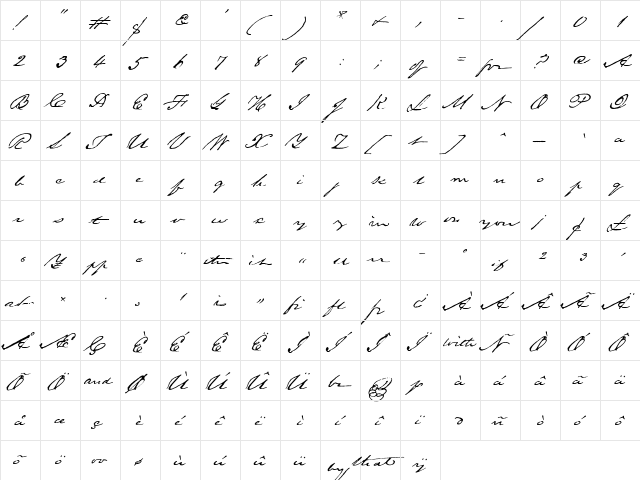
TexasHeroBETA Regular
Design Context for TexasHeroBETA Typeface
TexasHeroBETA is a composed and adaptable typeface that performs quietly and consistently across a wide range of design contexts.